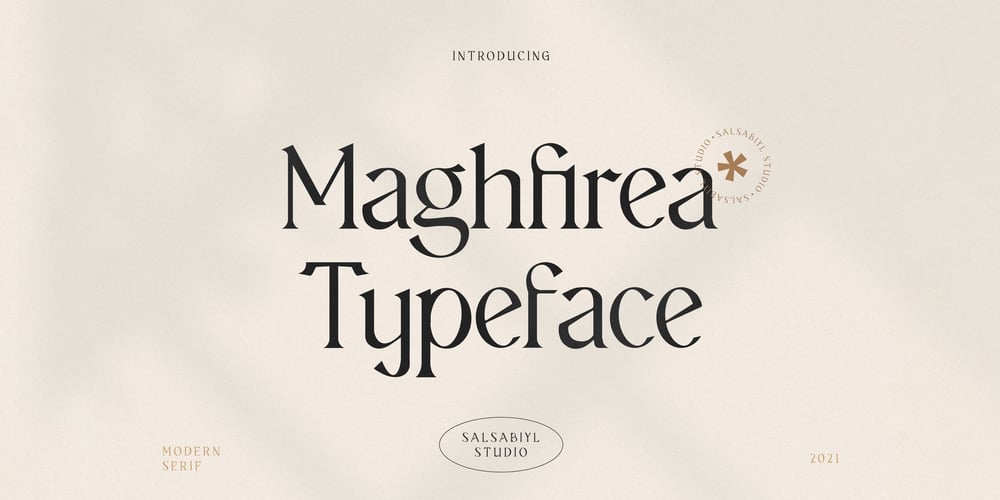
Maghfirea Font Family was designed by Royhan Nashuh Salsabiyl and published by Salsabiyl Studios. Maghfirea contains 1 styles and family package options. IntroducingMaghfirea Modern Serif FontMaghfirea is a modern and elegant serif font.This serif font is perfect for your next personal branding project.This serif font has plenty Characters and has Multilingual Support.Maghfirea is perfect choice for people looking for clean, modern, minimalist, elegant, beauty design styles.Suitable for almost any graphic designs such as logo, branding materials, business cards, gift cards, t-shirt, cover, thumbnail, print, poster, photography, quotes .etc.